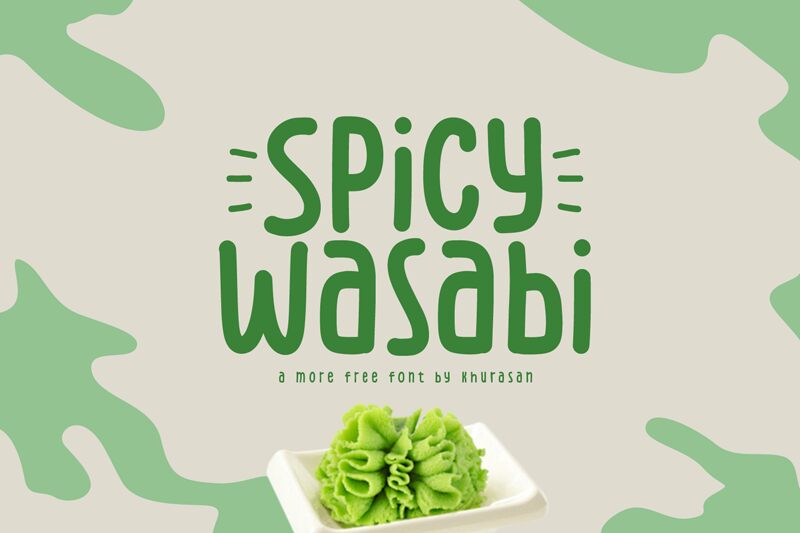
Spicy Wasabi
Spicy Wasabi, a delightful creation by Khurasan, is a display font that adds a touch of playfulness to any project.
With its semi-light weight and condensed width, this comic-style typeface is perfect for designing eye-catching posters and attention-grabbing packaging. Bring your children's books to life with its whimsical charm or use it in fun-filled party invitations. Spicy Wasabi will liven up your logo designs or add a dash of excitement to your social media graphics.
Let this font transport your audience into a world of imagination and laughter.